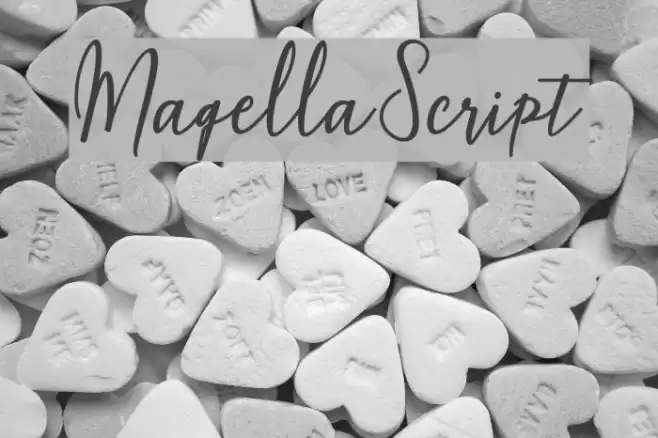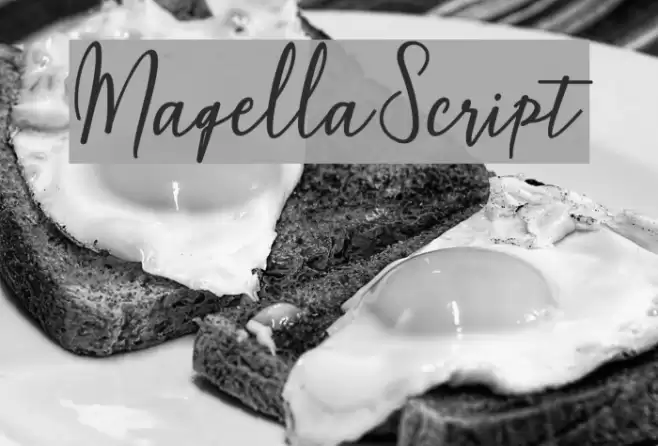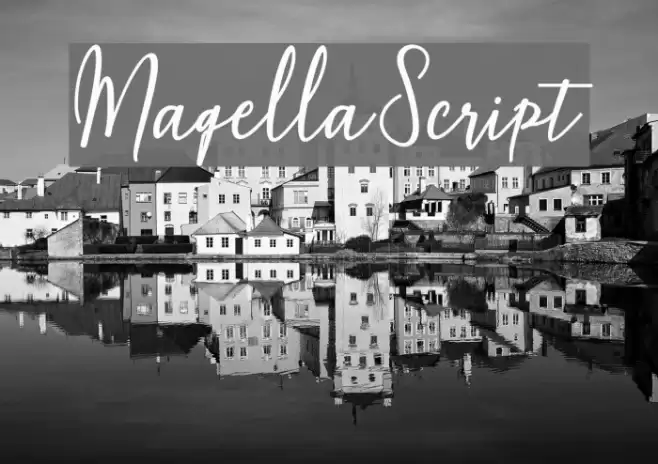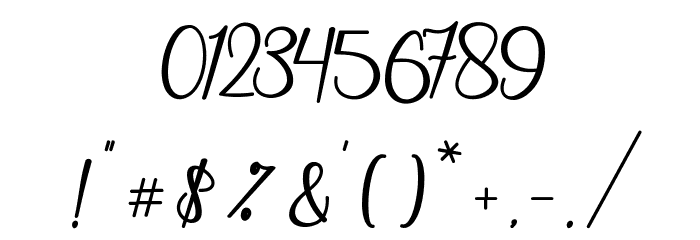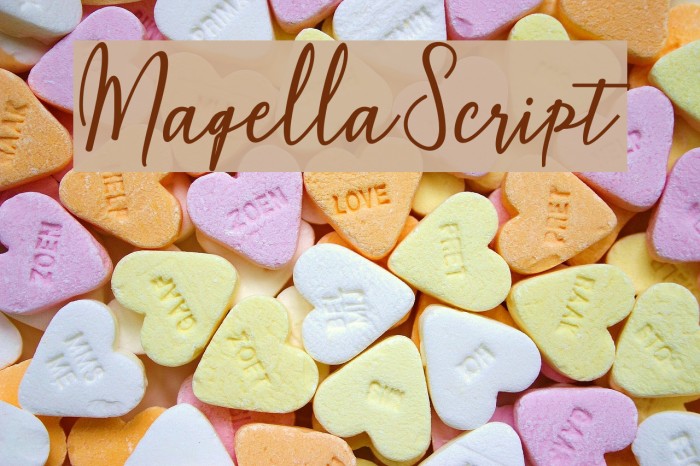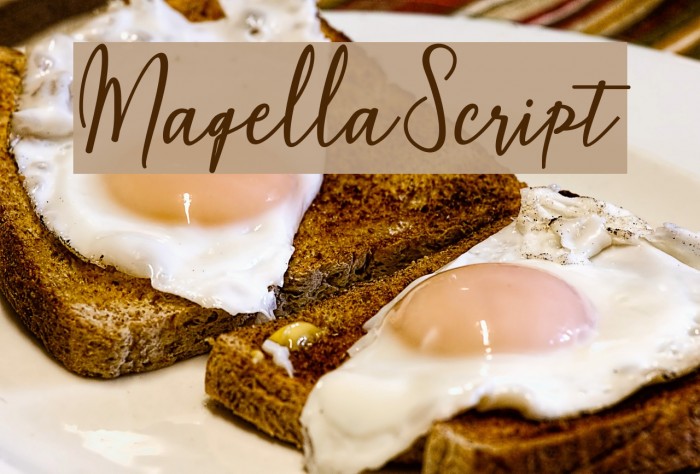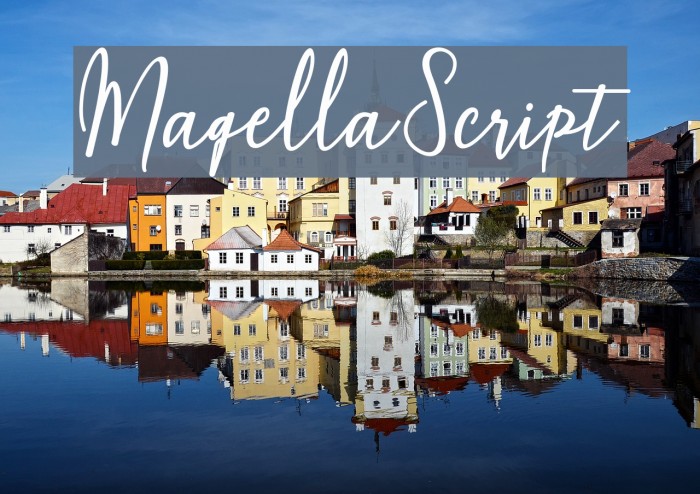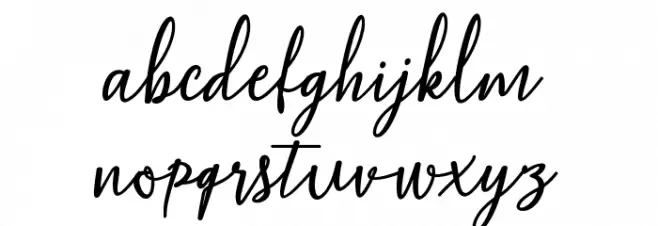
MaqellaScript Font
MaqellaScript Description
This elegant script font features flowing, cursive letterforms that exude a sense of sophistication and grace. The uppercase letters are tall and slender, with sweeping curves and delicate loops that give them a refined appearance. The lowercase letters maintain a consistent style, with smooth connections and a fluid motion that enhances readability. The numerals are designed to complement the letters, with a similar sense of flow and balance. Special characters are thoughtfully integrated, maintaining the overall aesthetic of the font. This font is perfect for projects that require a touch of elegance and style.
An elegant script font with flowing, cursive letterforms and refined curves from Uncategorized fonts.
- Proposed Projects: Ideal for wedding invitations, elegant branding, high-end product packaging, and personal stationery.
- Overall Style: Elegant
- Use Case: Logos, Invitations, Branding